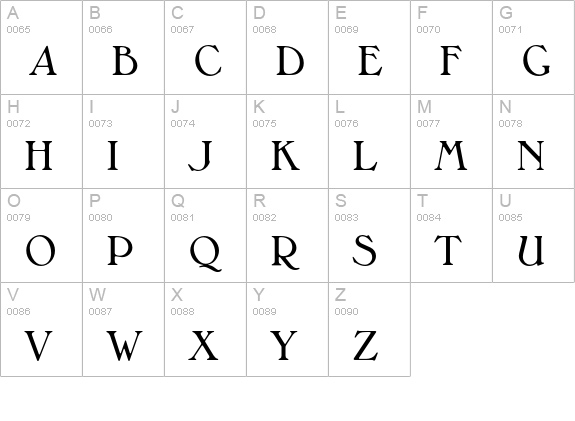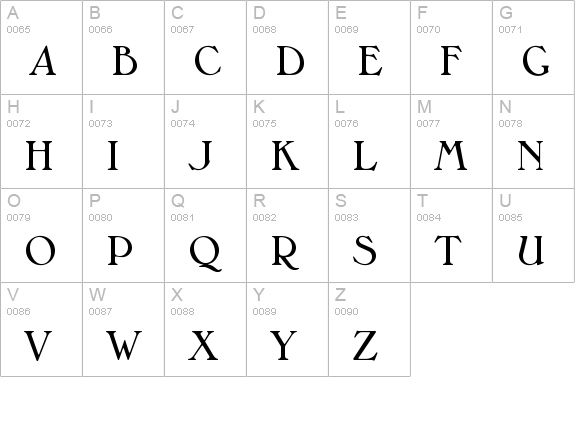
Melbourne-Medium is a balanced, medium-weight variant in the Melbourne typeface family \xE2\x80\x94 well suited to sub-headlines, navigation, and balanced editorial work.
Melbourne-Medium font is a modern and sleek typeface that exudes elegance and sophistication. Its clean lines and balanced proportions make it perfect for a wide range of design projects, from branding to editorial design. The Melbourne-Medium font strikes the perfect balance between professionalism and creativity, making it a versatile choice for both print and digital applications. The best part? Melbourne-Medium font is available for free download at FontsMarket.com. This means you can easily access this high-quality font without any cost, allowing you to elevate your designs without breaking the bank. Don't miss out on the opportunity to add Melbourne-Medium font to your font library today and take your projects to the next level.